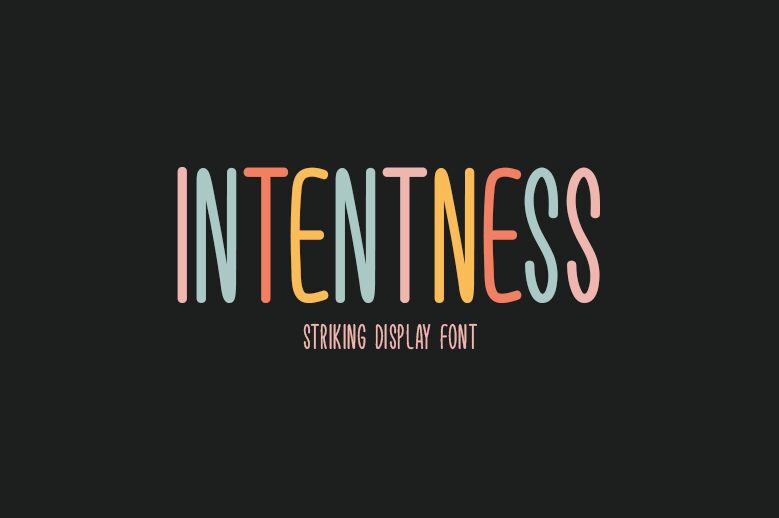
Intentness
Intentness font by Md Shohail Bhuian is a charming condensed handwritten type with clean lines and smooth curves. It shares tall proportions, uniform thickness, and rounded ends for a professional and modern appearance. Put together, the letters achieve perfect readability with their neat design which makes the type suitable for a wide range of applications.